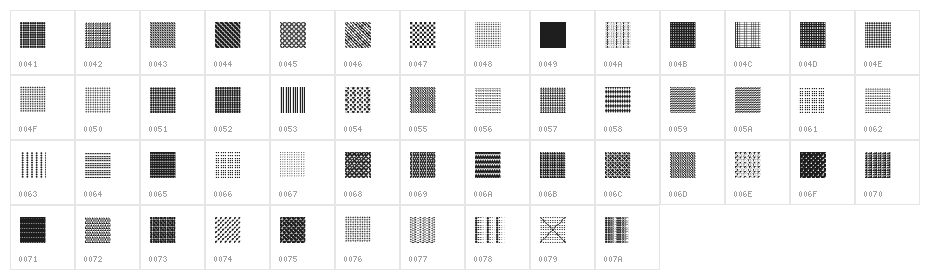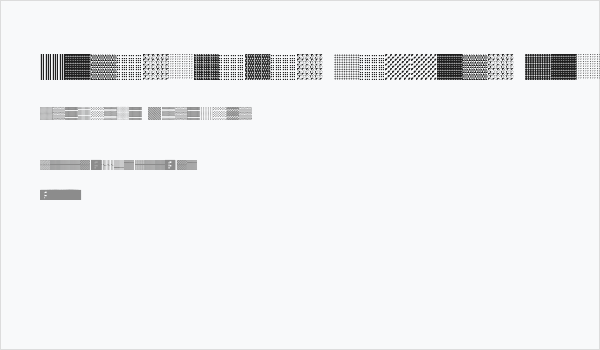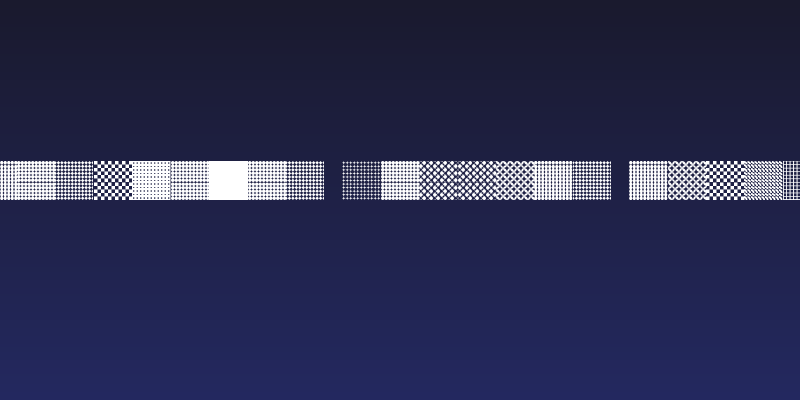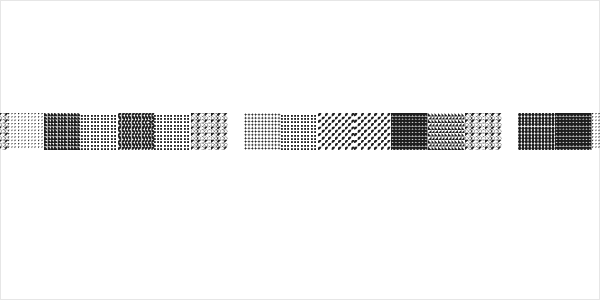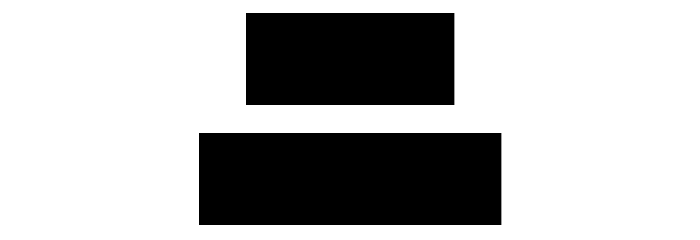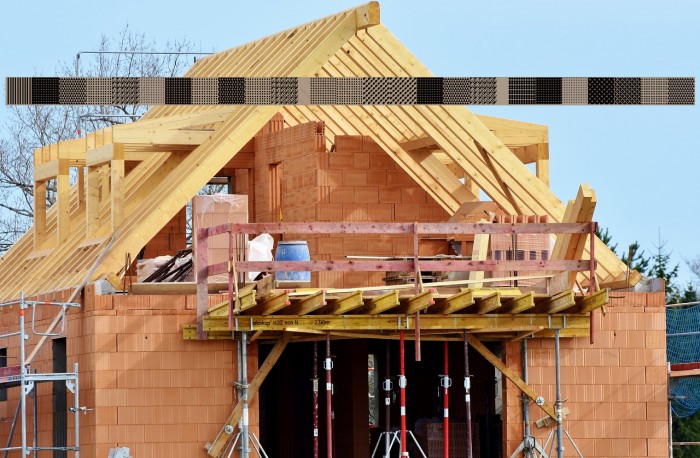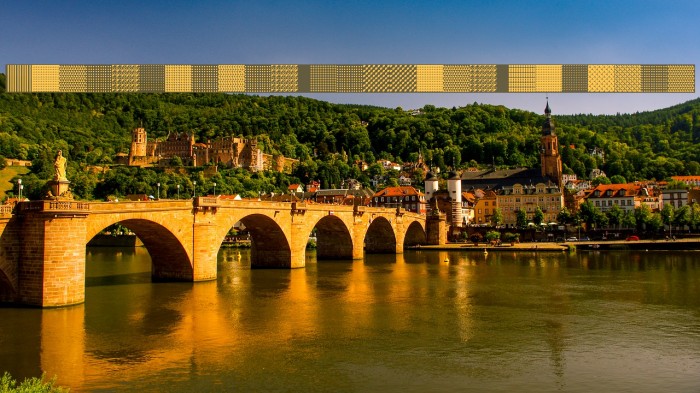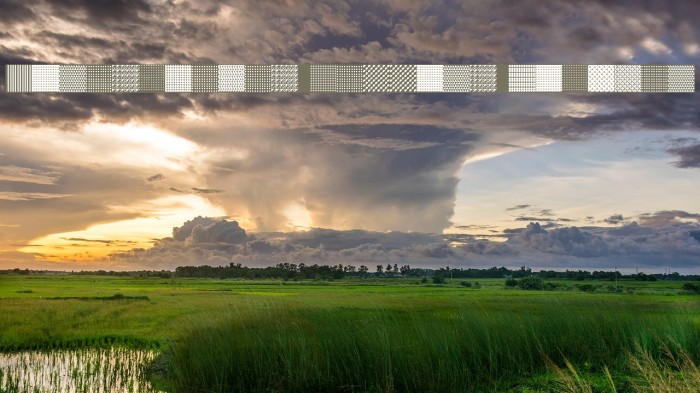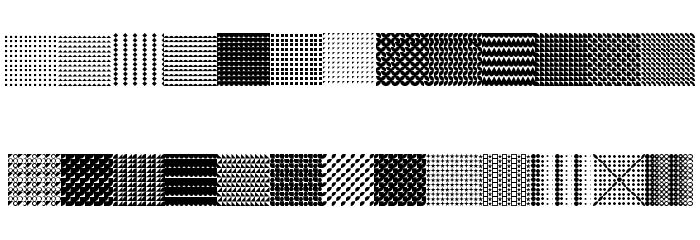
Serangkaian Pattern Regular Font
Serangkaian Pattern Regular Description
A collection of geometric, high-contrast black and white patterns, each glyph represented by a unique abstract motif such as dots, lines, grids, and waves. The set is visually striking and non-alphabetic, focusing on decorative pattern design rather than traditional letterforms.
| Overall Style | Decorative, Modern, Abstract |
| Use Case | Decorative elements, backgrounds, visual accents |
| Proposed Projects | Background textures, branding elements, packaging, posters, digital art, and decorative dividers. |